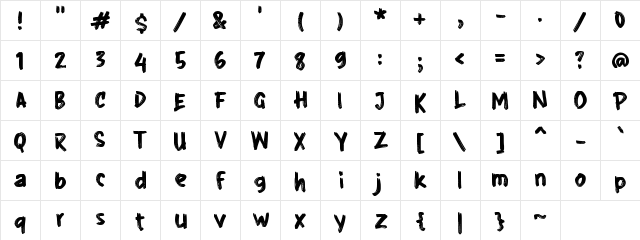
g Garez Regular Free Font
g Garez Regular
Designer: Wahyu Eka Prasetya
Design Context for g Garez
g Garez is a composed and adaptable typeface that performs quietly and consistently across a wide range of design contexts.